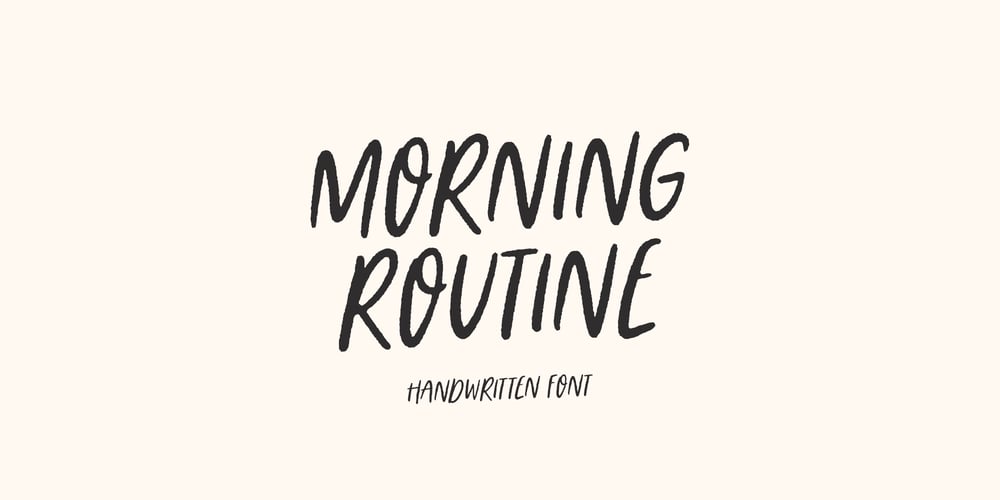
Morning Routine Font Family was designed by Dmitrii Chirkov and published by Supfonts. Morning Routine contains 1 styles and family package options. Morning Routine is a handwritten display font perfect for creating quotes, logos, or just adding a handwritten touch to any project!Font is an open type with clean shapes and precise kerning. It includes ligatures encoded by the PUA.Language support: All European languagesDon’t forget to subscribe so you don’t miss out on the new awesome fontsDima